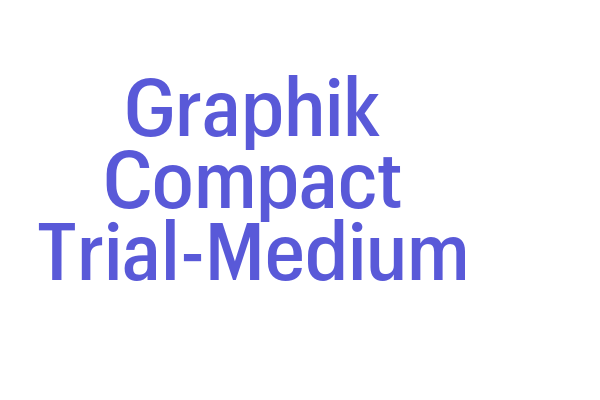
Graphik Compact Trial-Medium is a modern and sleek sans-serif font designed by Christian Schwartz. It belongs to the Graphik Compact Trial font family and is categorized under Basic and Sans-serif styles. This font is ideal for creating clean and professional designs, making it perfect for corporate branding, editorial layouts, and digital interfaces.
Font Name: Graphik Compact Trial-Medium
Designer: Christian Schwartz